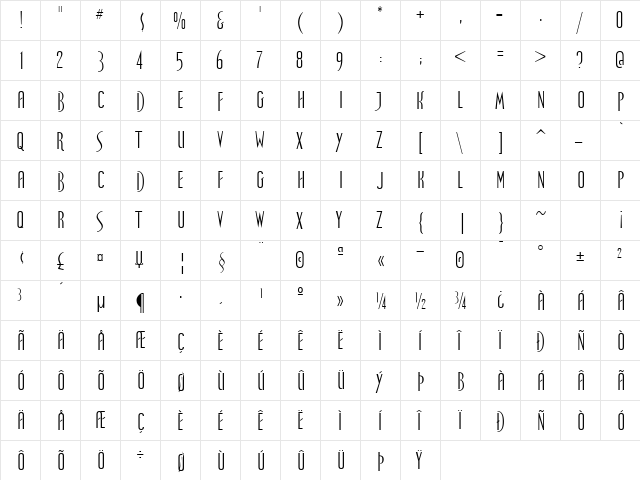
GE Marquee Caps Regular
Design Context for GE Marquee Caps Typeface
GE Marquee Caps offers clean, dependable letterforms without strong stylistic allegiance, making it a practical choice for designers who need flexibility.
Pro Tip: Use GE Marquee Caps in both headline and body roles to test its range before committing to a single application.